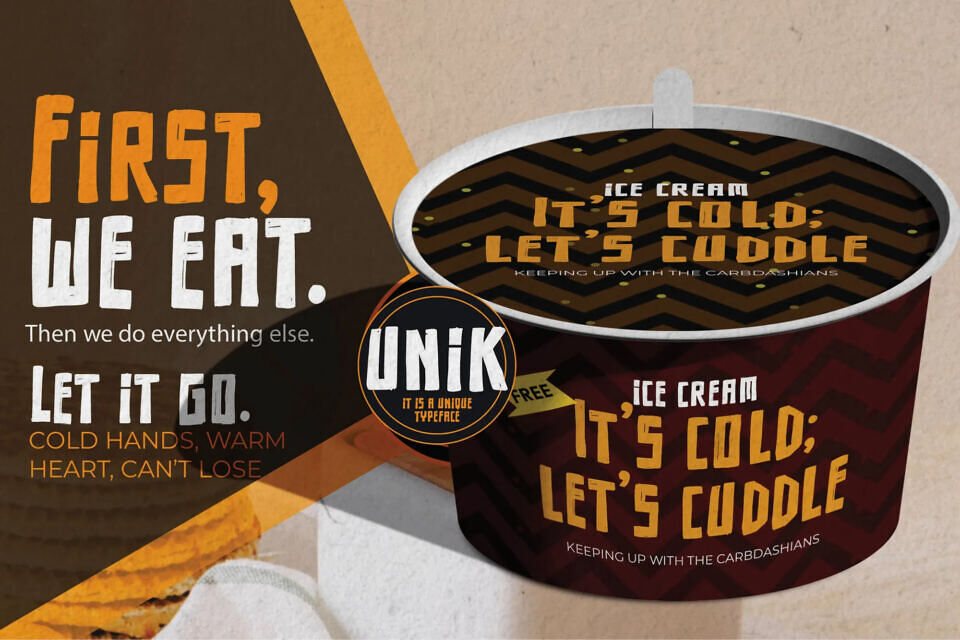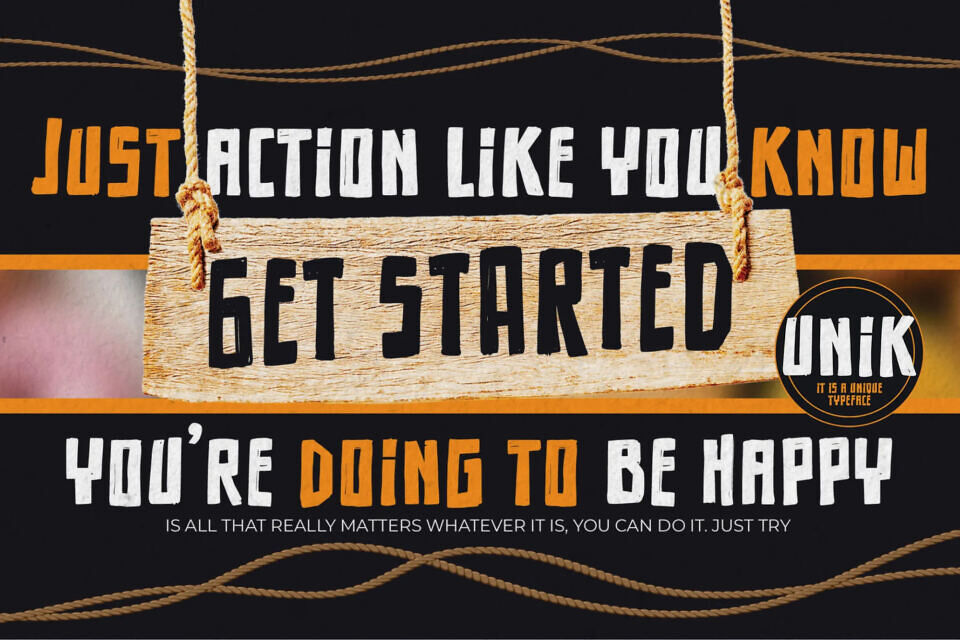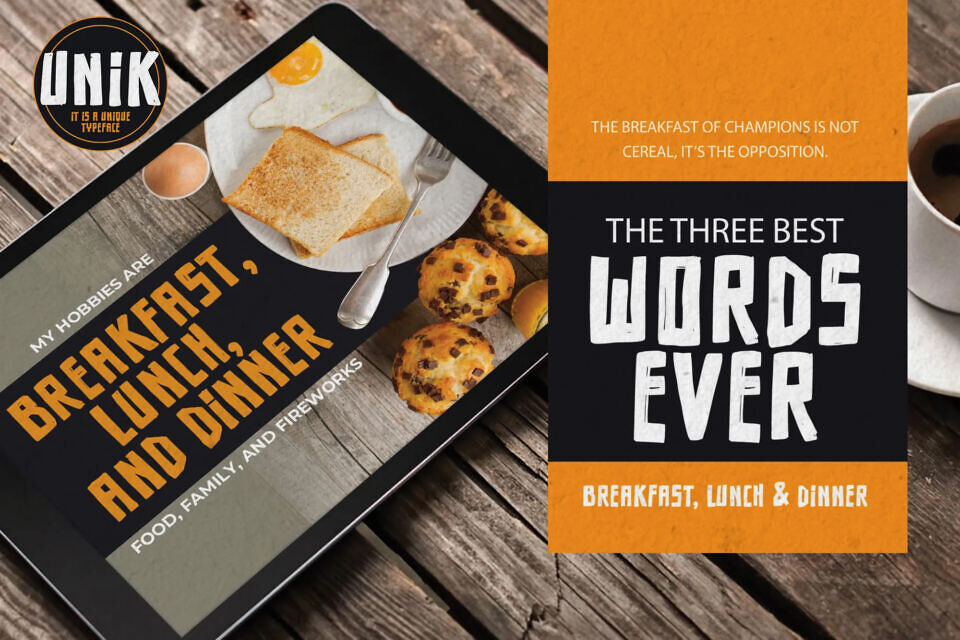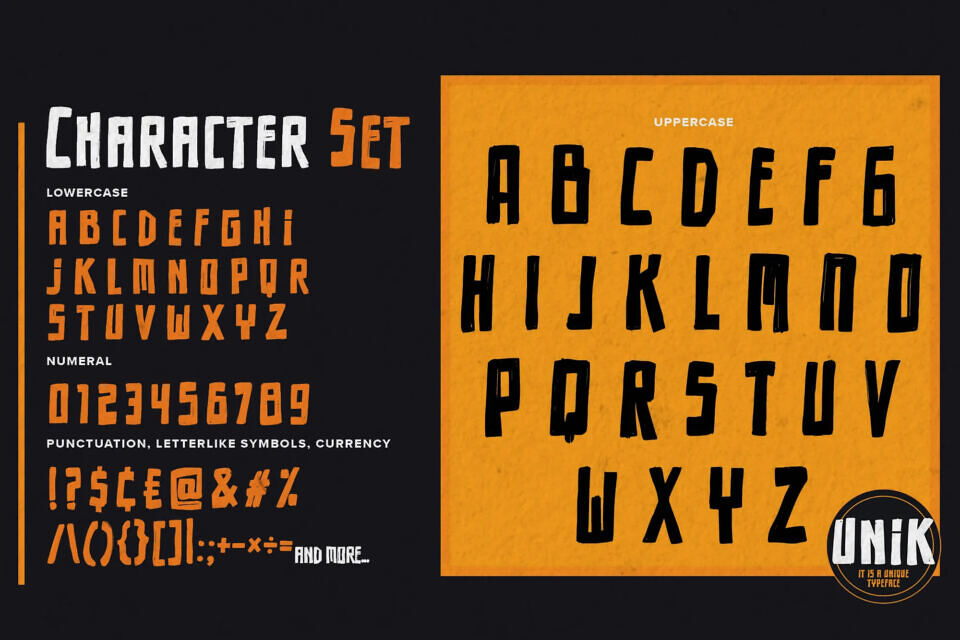
Meet Unik, a one-of-a-kind sans serif font with a playful cartoon twist. Inspired by iconic brand logos, it’s perfect for creative projects like photography watermarks, logos, and product designs.
With a hand-drawn feel, Unik adds a natural touch to designs, making it ideal for invitations, book covers, and more. Its versatility suits various purposes, from photography overlays to scrapbooking and signage, bringing a beautiful, organic feel to every detail.